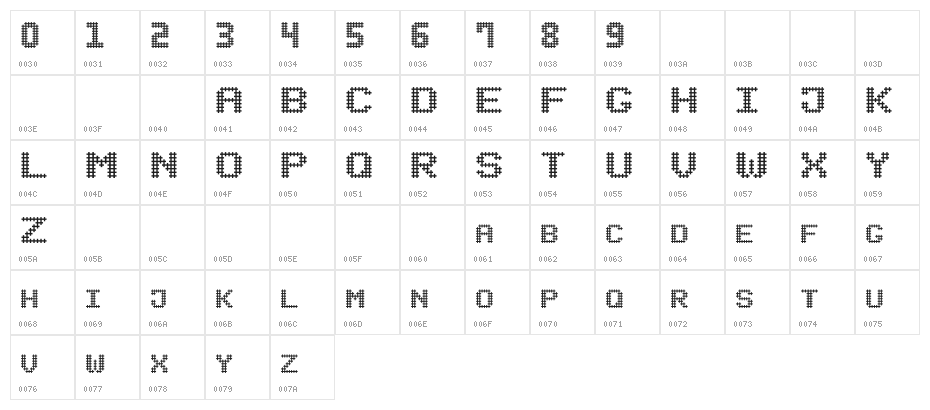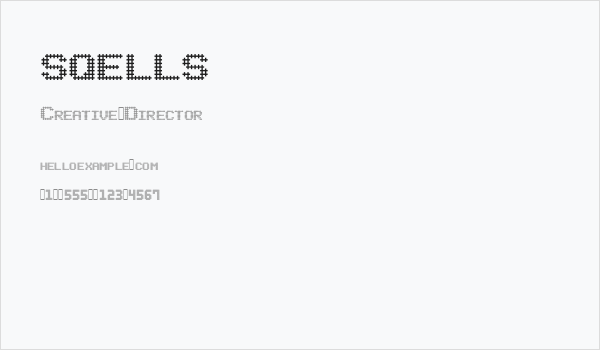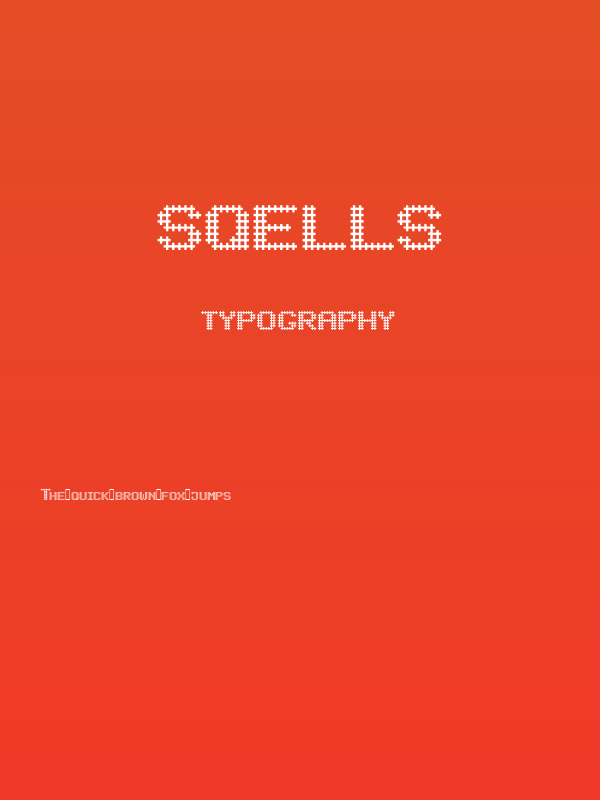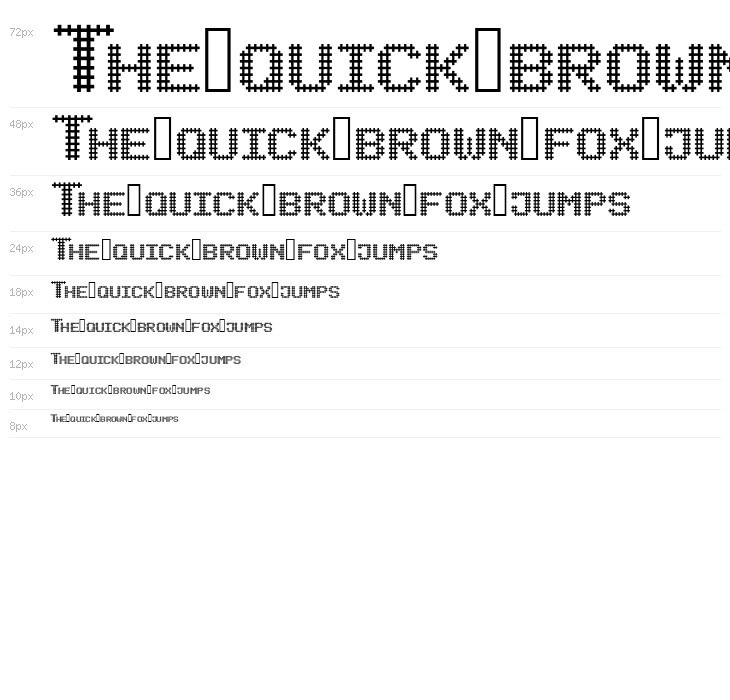
SQELLS Font
SQELLS Description
This font features a unique design where each character is composed of small, evenly spaced square dots, creating a digital or pixelated appearance. The uniformity of the dots gives it a structured and geometric look, reminiscent of early digital displays or LED screens. The characters are well-defined and maintain a consistent height and width, providing a balanced and cohesive visual experience. The style is both modern and retro, making it versatile for various design applications. Its distinct appearance ensures high visibility and readability, even at smaller sizes.
| Use Case | Headlines, Logos, Digital displays |
| Proposed Projects | Ideal for digital art, retro-themed designs, video game graphics, tech branding, and futuristic posters. |